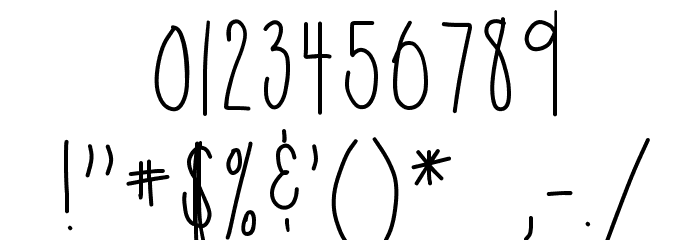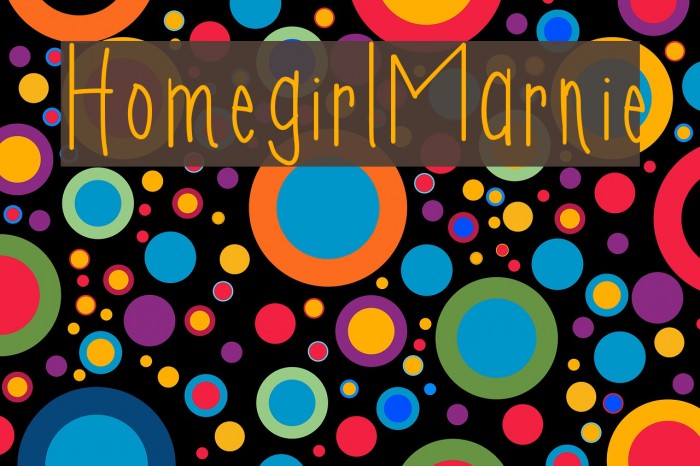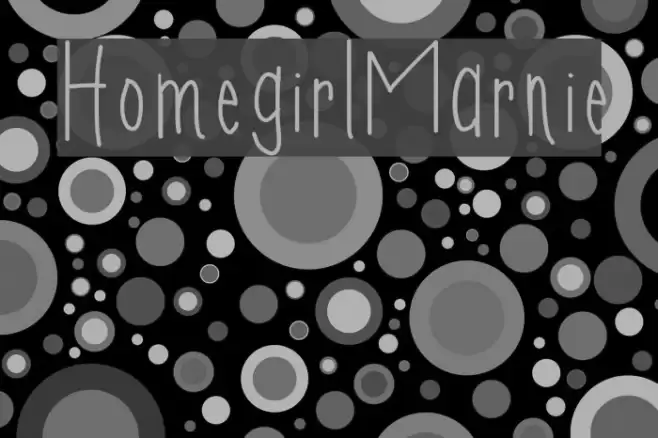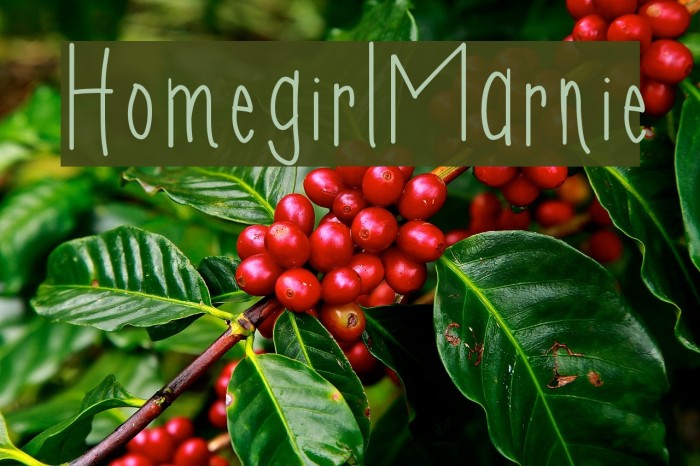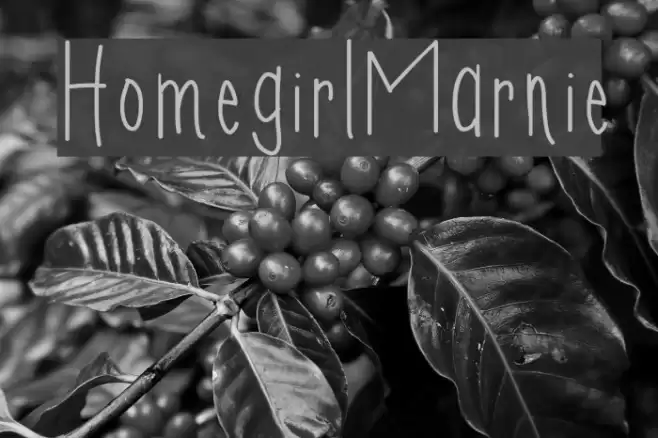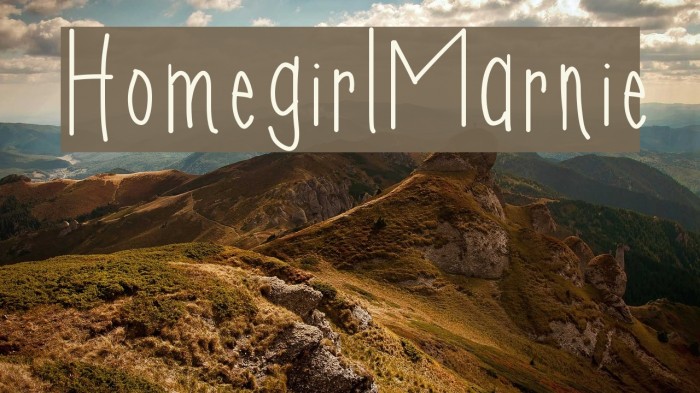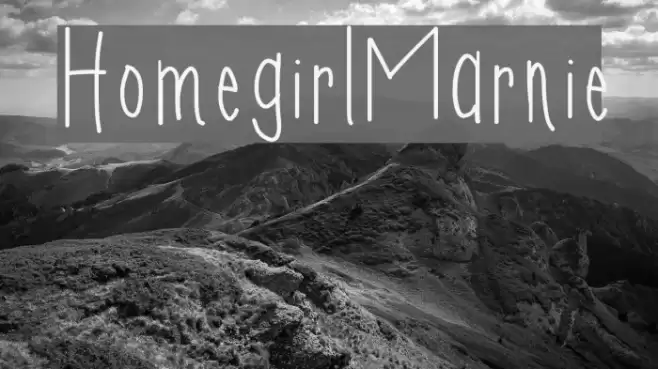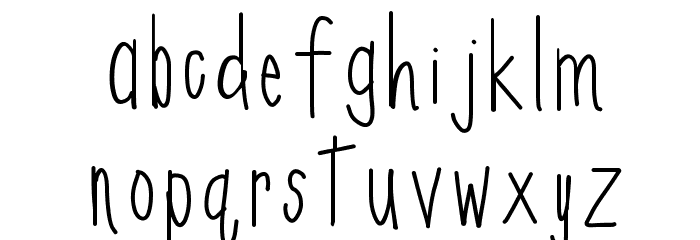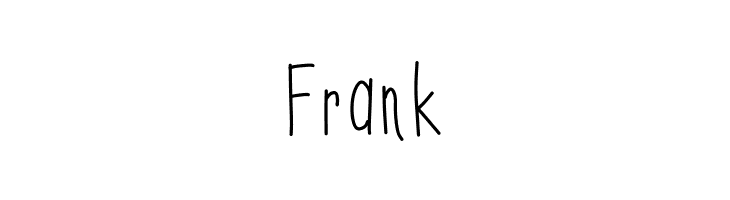
HomegirlMarnie Font
This font features a playful and casual handwritten style, characterized by its tall and narrow letterforms. The strokes are uneven, adding a personal and informal touch. The uppercase letters are slightly taller than the lowercase, maintaining a consistent width throughout. The numbers and special characters follow the same whimsical style, making it ideal for projects that require a friendly and approachable look. The font's simplicity and charm make it versatile for various creative applications.
A playful, handwritten font with tall, narrow letterforms and a casual style.
• Proposed Projects: Ideal for greeting cards, children's books, personal blogs, and informal branding.
• Category: Handwritten
• Width: Condensed
• Overall Style: Casual
• Use Case: Headlines, Informal text, Creative projects